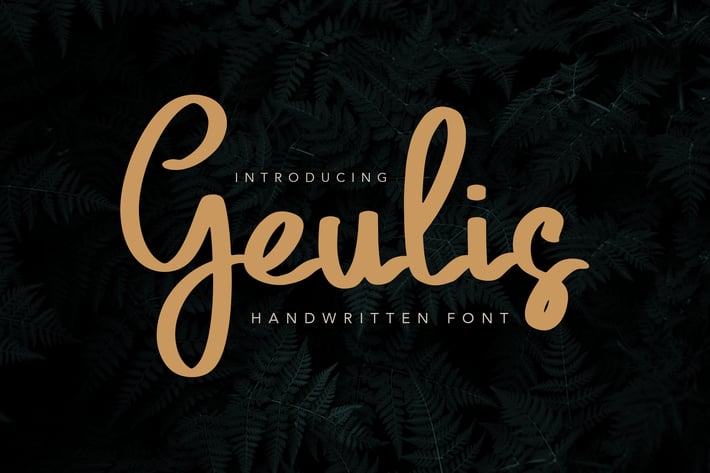
Geulis Stylish Font
Introducing Geulis
A handwritten font with stylish and elegant feels. Geulis is perfect for branding projects, print template, document, food menu, product packaging - or a stylish text overlay to any background image.
Geulis features:
+ Stylish font type with elegant and clean character. It is perfect for the beauty and any clean layout.
+ Uppercase & Lowercase letters
+ Numbering and Punctuation